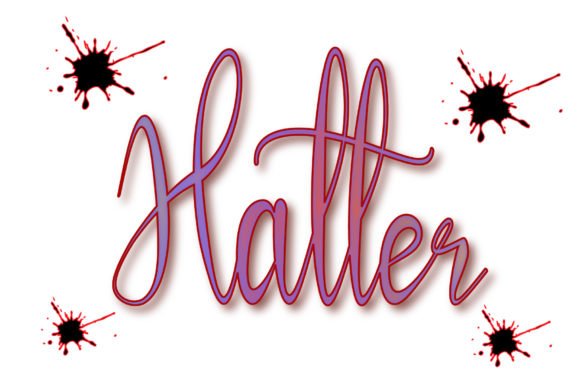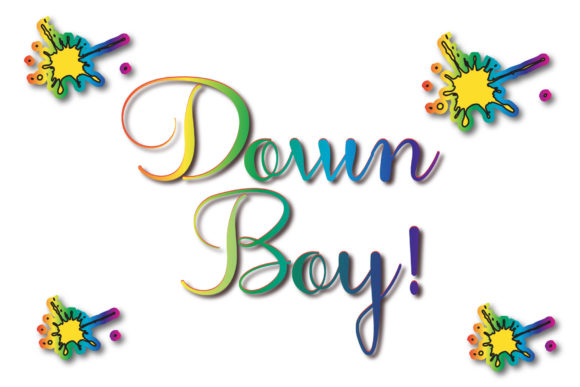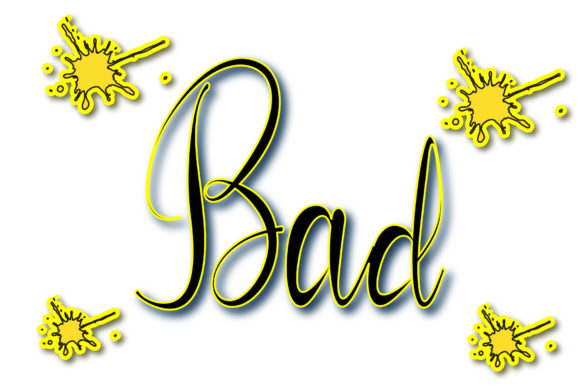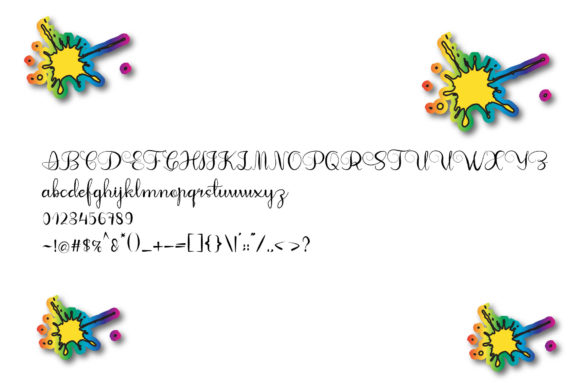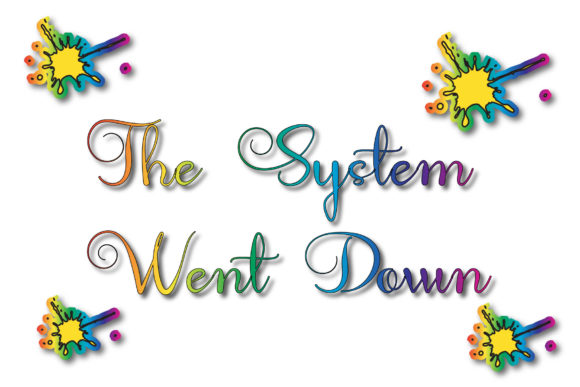
The Perfect Script: Unveiling the Elegance of Hatter Font
Have you ever sat at your desk, staring blankly at a blank page, trying to come up with the perfect phrase to express your love and gratitude? The pressure to create something special, something that will make a lasting impression, can be overwhelming. But what if the right words were waiting for you in a font that’s as elegant as it is expressive?
Enter the Hatter Font, a stylish and incredibly elegant script font that adds a touch of handwritten charm to any design. Whether you’re creating wedding invitations, thank you cards, quotes, or logos, this font is sure to elevate your work to new heights. As a designer, you know how valuable a versatile font can be, and Hatter Font is no exception.
Hatter Font Key Features
- Font Style: Script, handwritten font with a whimsical and playful feel.
- Unique Characteristics: Features a distinctive, flowing script style with intricate details and flourishes, perfect for adding a touch of elegance and sophistication to designs.
Hatter Font Review
Overall, I’m quite pleased with the Hatter Font. It’s a unique, quirky font that’s perfect for adding a touch of whimsy to your designs.
- ✨ The font’s playful, handwritten feel makes it ideal for creative projects like invitations, posters, and social media graphics.
- ✨ The font is highly customizable, with a range of styles and weights to choose from, making it suitable for various design applications.
- ✨ The font is well-behaved, with clear and consistent letterforms that make it easy to read and set.
- ⚠️ The font may not be suitable for formal or professional projects, as its playful nature may not be taken seriously.
- ⚠️ The font’s complexity may lead to font substitution issues in certain environments, such as older systems or web browsers.
Overall, I’d give the Hatter Font 4 out of 5 stars. It’s a fantastic addition to any designer’s toolkit, but its limitations should be carefully considered before use. With its unique charm and high customizability, it’s sure to add a touch of magic to your designs.
Hatter Font is ideal for:
- Designing whimsical and playful content (e.g., children’s books, party invitations, etc.).
- Creating unique and eye-catching typography for branding and marketing materials.
- Adding a touch of elegance and sophistication to formal designs (e.g., wedding invitations, luxury product packaging, etc.).